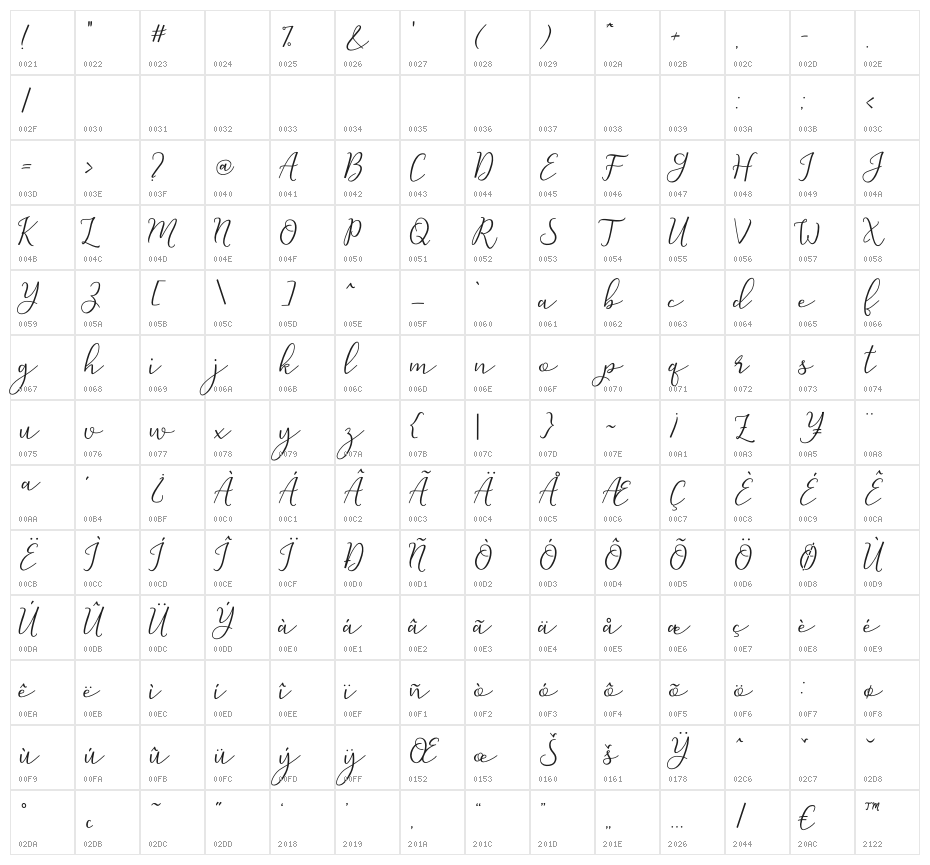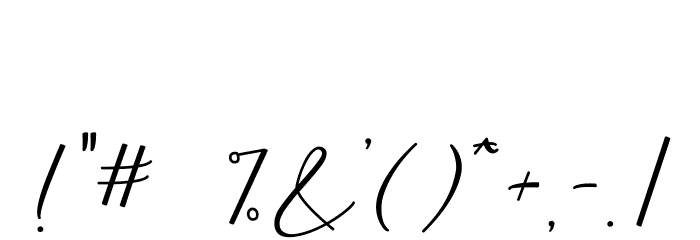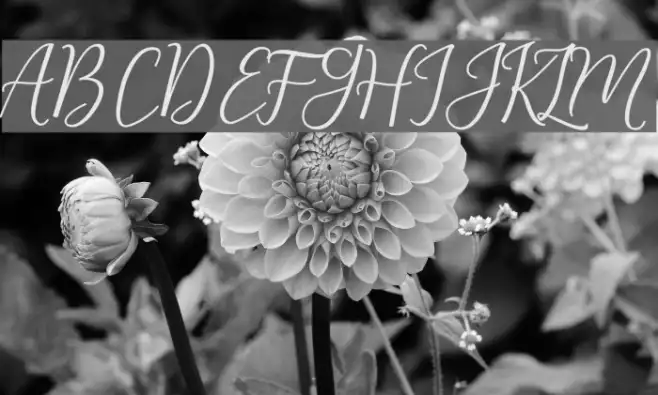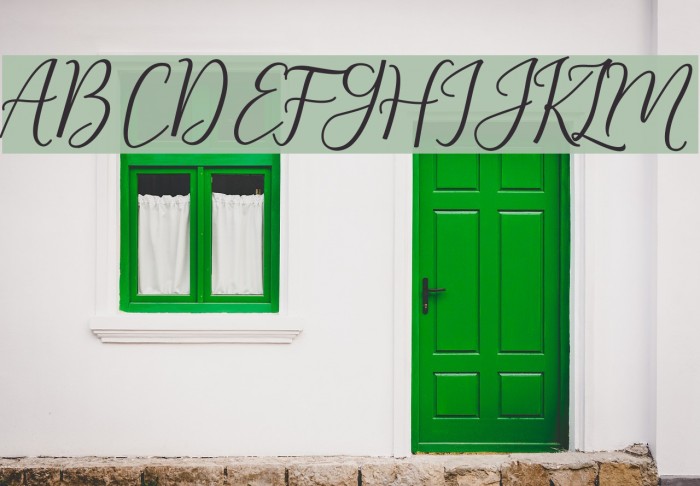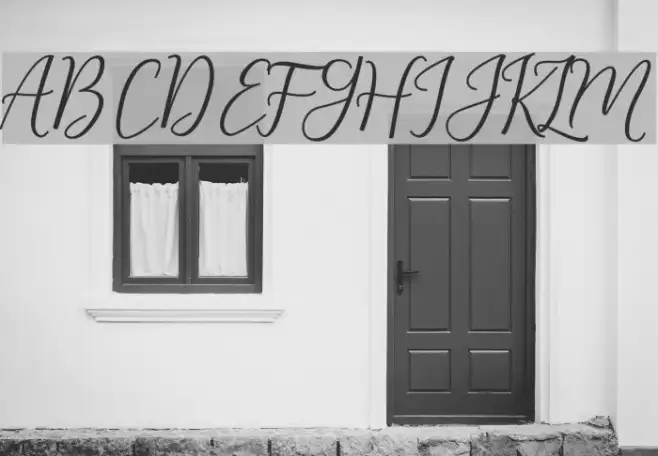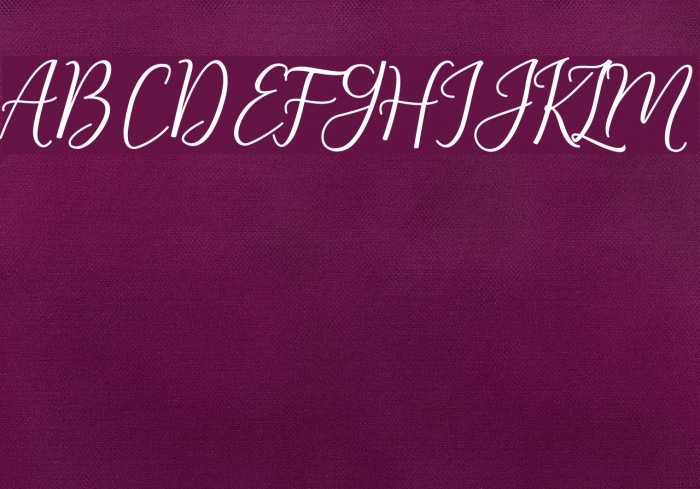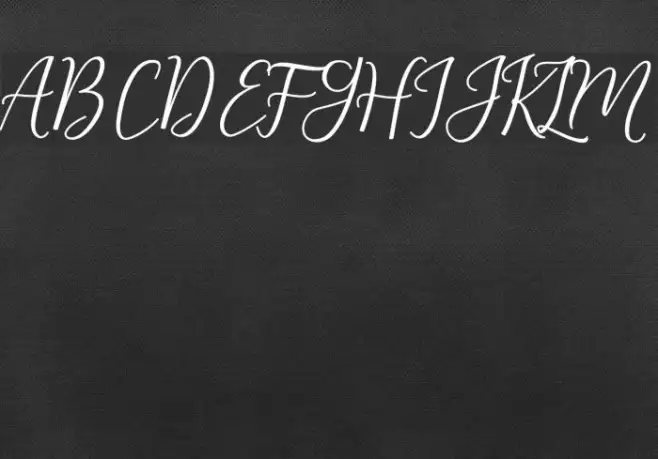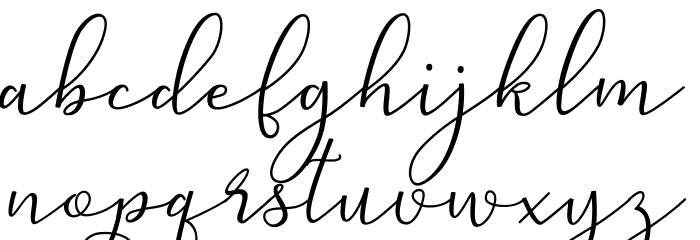
Michel Flow Font
Michel Flow Description
This elegant script font features fluid, cursive strokes that convey a sense of sophistication and grace. The uppercase letters are characterized by sweeping curves and loops, while the lowercase letters maintain a consistent flow with delicate connections. The font's design is reminiscent of traditional calligraphy, with a modern twist that makes it suitable for contemporary applications. The numerals and special characters are crafted with the same attention to detail, ensuring a cohesive look across all text elements. This font is perfect for projects that require a touch of elegance and refinement.
MICHEL-FLOW UPPERCASE
MICHEL-FLOW LOWERCASE
MICHEL-FLOW OTHER CHARS
| Overall Style | Elegant, Modern |
| Proposed Projects | Ideal for wedding invitations, elegant branding, greeting cards, and upscale packaging. |